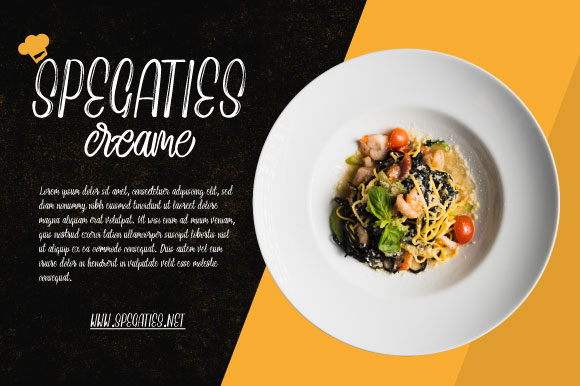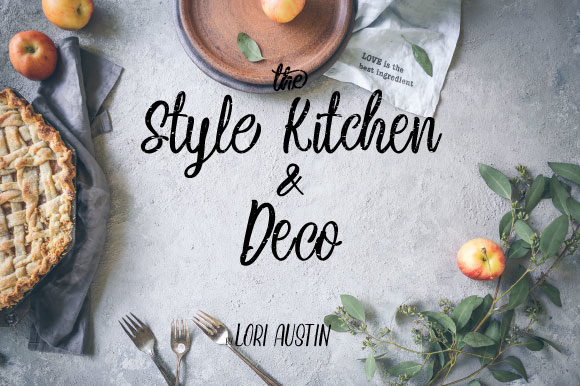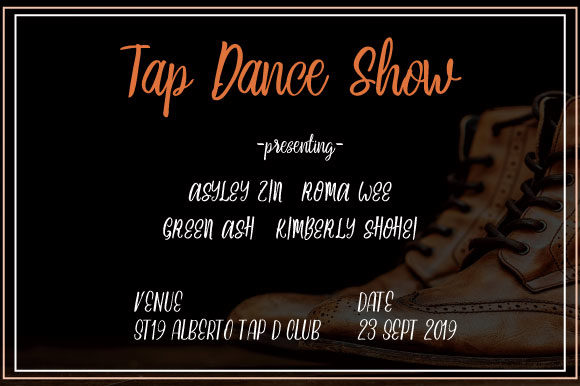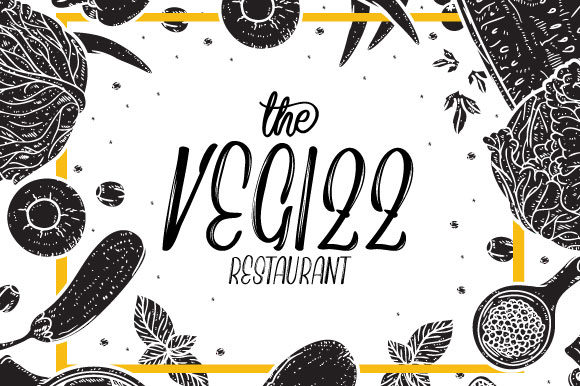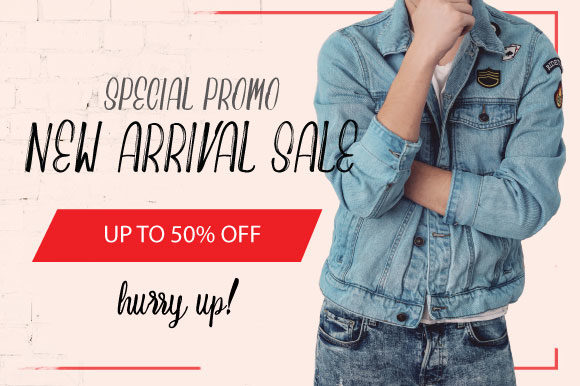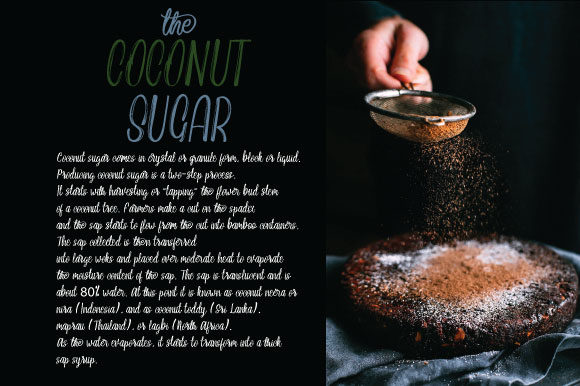
Unleash Your Creativity with the Cramella Duo Font
Have you ever sat down with a blank page, a blank canvas, or even a blank screen, and felt the weight of creativity bearing down on you? The pressure to create something amazing, something unique, something that stands out from the crowd? We’ve all been there, and it’s precisely in those moments that we need a little inspiration to spark our imagination.
That’s where the Cramella Duo Font comes in – a carefully crafted handwritten font duo with a fun and elegant charm that’s sure to bring a smile to your face. Whether you’re a seasoned designer or just starting out, this font is the perfect addition to your toolkit. With its unique feel and versatility, the Cramella Duo Font is a valuable asset for any designer looking to add a touch of personality to their projects.
Cramella Duo Font Key Features
- Unique Characteristics: Elegant, modern script with a mix of cursive and handwritten styles, perfect for invitations, wedding cards, and other creative projects
- Font Style: Script, cursive, handwritten, elegant, modern
Cramella Duo Font Review
I recently had the chance to work with Cramella Duo Font, and here’s my honest take on it.
- The font has a unique and stylish aesthetic, making it perfect for modern designs.
- The bold and regular styles work well together, creating a visually appealing combination.
- The font is highly customizable, with a wide range of weights and styles available.
- The font can feel a bit overwhelming in smaller text sizes, making it difficult to read.
- The font’s irregularities can be distracting in certain contexts, such as body text.
- The font is not ideal for projects that require a more traditional or conservative look.
Cramella Duo Font is a great choice for designers who want to add a touch of modernity to their projects. While it has some limitations, the font’s unique aesthetic and customizability make it a valuable addition to any design toolkit. Overall, I would recommend Cramella Duo Font for projects that require a bold and stylish look.
The Cramella Duo Font is ideal for:
- Designing invitations and party decorations.
- Creating social media graphics and posts.
- Developing branding materials, such as logos and business cards.
Q: Does Cramella Duo Font support ligatures and swashes?
Yes, Cramella Duo Font supports ligatures and swashes. Ligatures are available for certain letter combinations, and swashes can be enabled through the font’s OpenType features. Please refer to the font’s documentation or user manual for more information on how to access these features.